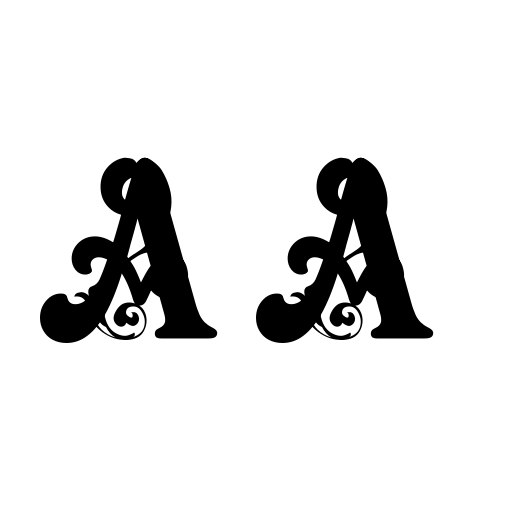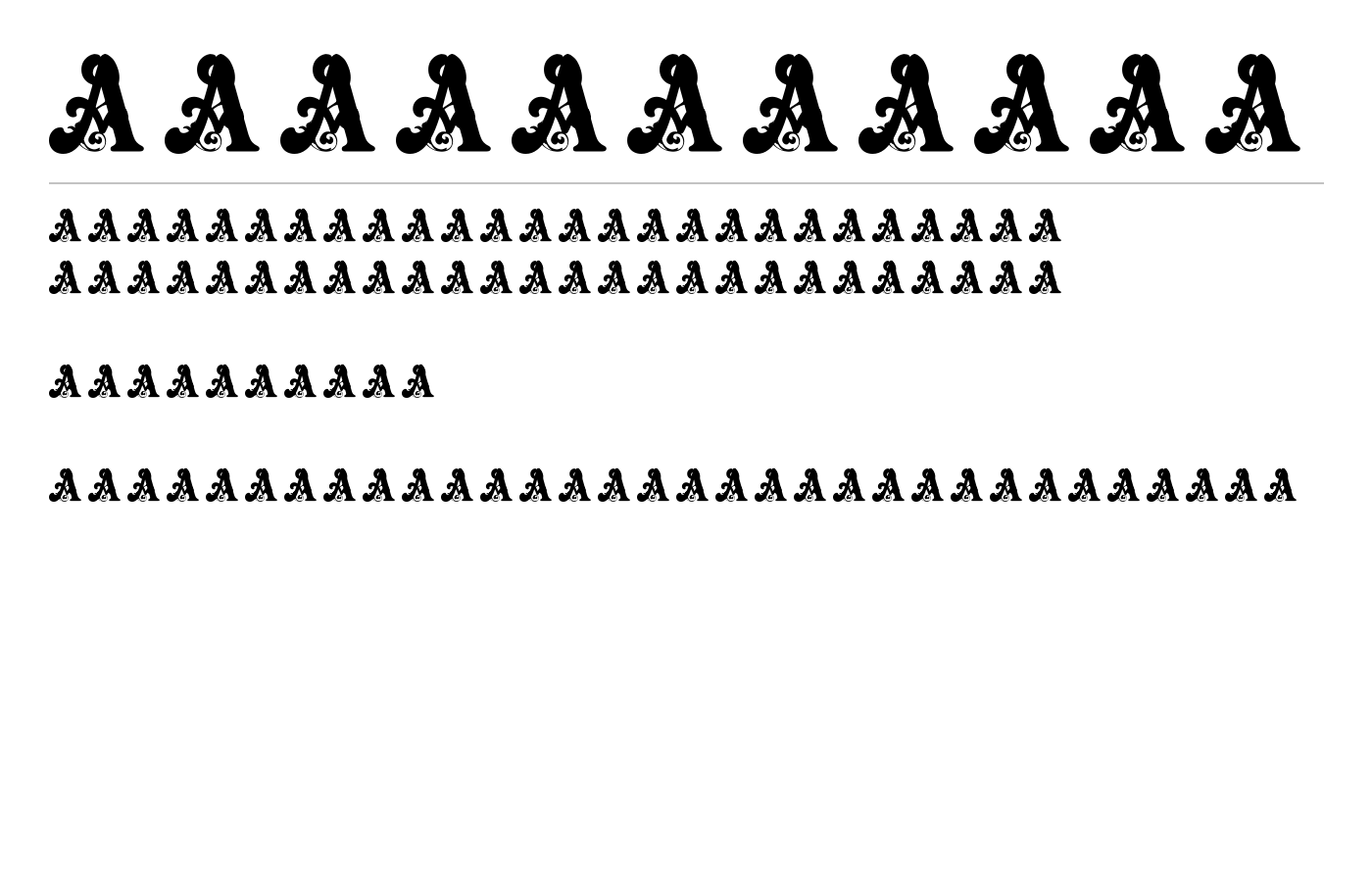
Baby Pirate is a bold, decorative serif font featuring thick, playful letterforms with intricate swirls and curlicues that give it a whimsical, vintage pirate-themed vibe. Its heavy weight and ornate details make it ideal for eye-catching headlines, logos, and themed designs where a fun yet strong personality is desired. This font works wonderfully in creative packaging, posters, and branding projects that aim to evoke adventure and charm.
baby pirate Font
About baby pirate Font